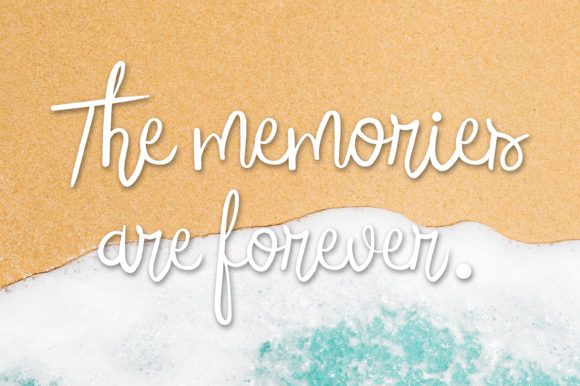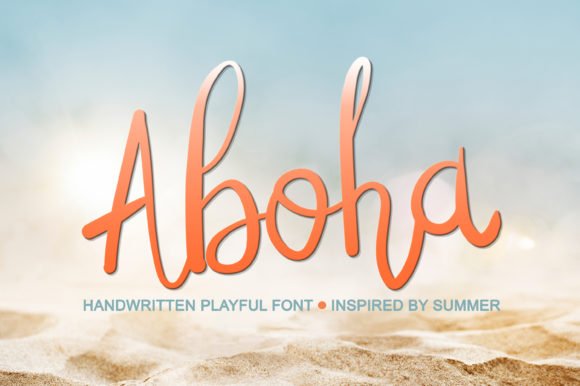
A New Era in Handwritten Fonts: Discovering the Magic of Aboha Font
Have you ever sat at your desk, staring blankly at a blank page, waiting for inspiration to strike? That’s exactly where I was when I stumbled upon the Aboha Font. Its unique blend of classic calligraphy and modern flair had me hooked from the very first glance.
Aboha Font is a beautifully crafted handwritten font designed to add a touch of elegance to any design project. Its purpose is to simplify the process of creating visually stunning typography without sacrificing style. Whether you’re a seasoned designer or just starting out, Aboha Font is an invaluable asset to your toolkit. Its versatility makes it perfect for a wide range of applications, from branding and advertising to editorial and digital media.
With Aboha Font, you’ll be able to create professional-looking designs that exude sophistication and charm. Its value lies in its ability to elevate your work to the next level, making it a must-have for any designer looking to make a lasting impression.
Aboha Font Key Features
• Unique Characteristics: The font features a unique blend of modern and traditional elements, making it ideal for designers seeking a distinctive and eye-catching look.
• Language Support: Aboha Font includes comprehensive language support, covering Latin, Cyrillic, and Greek scripts, as well as various diacritical marks and special characters.
• Font Weight and Style: The font family includes various weights, from Light to ExtraBold, as well as italic and bold-italic styles, providing flexibility for designers to create visually appealing typography.
Aboha Font Review
I recently had the chance to work with the Aboha font, and I must say it’s a unique addition to any design project. Here’s my honest review:
• Unique blend of modern and traditional elements: Aboha font successfully combines the elegance of traditional typography with the modern flair of contemporary design.
• Perfect for creative projects: This font is ideal for projects that require a touch of personality and uniqueness, such as branding, packaging, or editorial design.
• Highly customizable: Aboha font offers a range of weights and styles, allowing designers to experiment and create a wide range of looks and feels.
• Limited legibility at small sizes: While Aboha font is stunning at larger sizes, its legibility can suffer at smaller sizes, making it less suitable for body text or other small-scale applications.
• May not be suitable for formal documents: The font’s unconventional design may not be suitable for formal documents, such as business reports or academic papers.
Aboha font is a bold and eye-catching addition to any design project. While it may have some limitations, its unique blend of modern and traditional elements makes it perfect for creative projects that require a touch of personality and uniqueness.
Tips for Getting the Most Out of Aboha Font
Here are some tips for getting the most out of Aboha Font:
• Use Aboha Font for headings and titles to create a bold and eye-catching effect.
• Combine Aboha Font with other fonts to create a unique and visually appealing design.
• Experiment with different font sizes and styles to find the perfect look for your project.
Aboha Font is perfect for:
• Creating eye-catching headings and titles.
• Designing unique and visually appealing logos.
• Adding a touch of elegance and sophistication to your designs.
Alternatives to Aboha Font for Designers
Aboha Font is a modern sans-serif font known for its clean and minimalistic design. However, there are several alternatives that can be used in its place, depending on the specific needs of the design project.